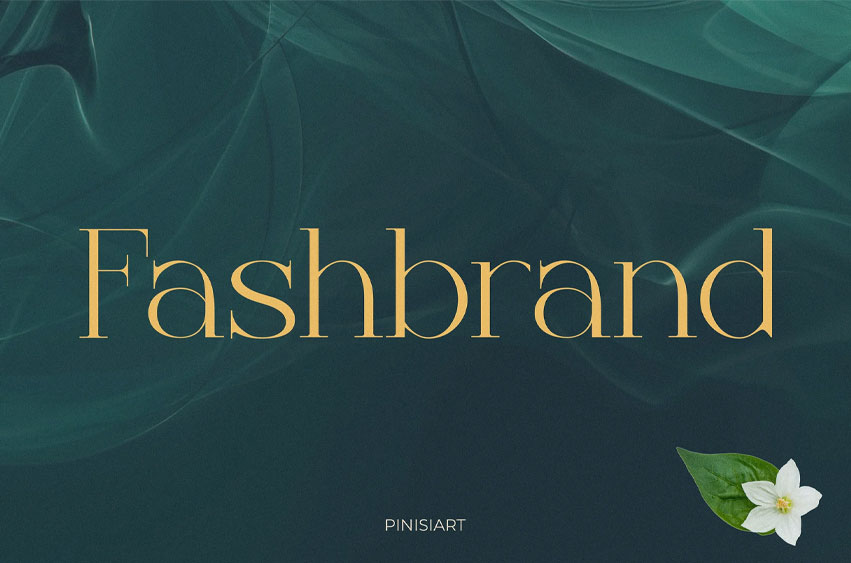
Fashbrand Font is a luxury editorial display font that blends expressive contrast, high x-height, and soft terminals—perfect for upscale branding and timeless fashion layouts. Designed with a refined aesthetic and symmetrical letterforms, it delivers quiet confidence and elegant authority across layouts. With a blend of serif charm and geometric proportion, Fashbrand suits both modern fashion editorials and heritage identity systems. Its delicate balance of thin strokes and bold titles offers visual harmony and high legibility, especially in headlines, packaging, and premium brand storytelling.
Whether you’re curating a seasonal campaign, launching a heritage fashion line, or designing high-end magazine spreads, Fashbrand delivers visual impact that feels both classic and contemporary. Its graceful voice suits designers aiming for an upscale presence—ideal for branding, editorial layouts, packaging, event promotions, or even luxury online stores. If your project seeks a stylish, editorial finish with a refined edge, this typeface becomes your visual anchor.
- Elegant serif structure with sharp serifs and smooth tapering curves
- Designed for high-contrast layouts and elevated brand tone
- Perfect for fashion campaigns, lookbooks, beauty packaging, posters, and upscale UI headers
- High legibility, even at smaller sizes—great for both digital and print